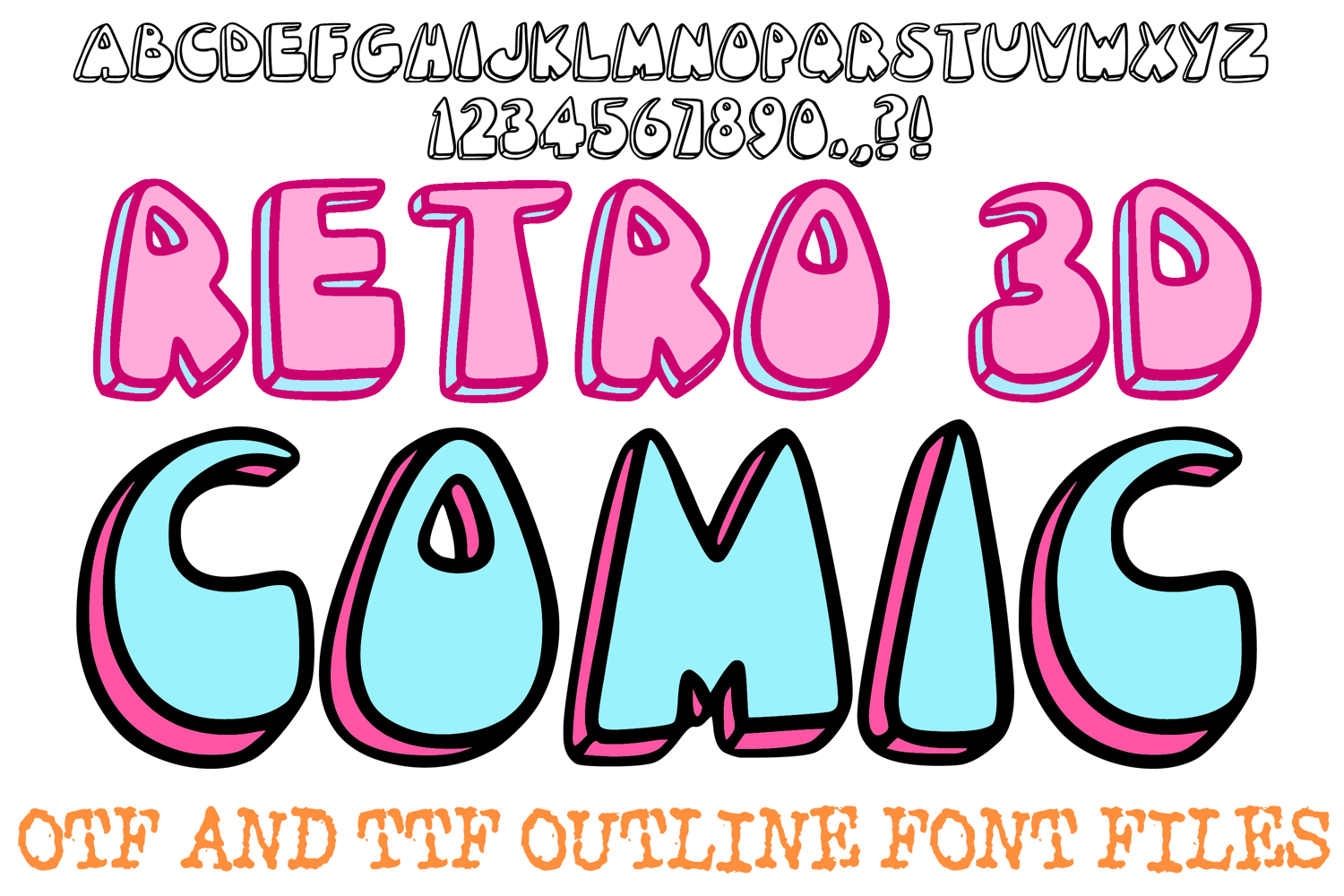
Retro 3D Comic Font Vintage Cartoon Written Lettering ABC
Pop your designs off the page with the Retro 3D Comic Font! This vibrant, high-energy display typeface features chunky, bubble-style characters with a classic offset shadow that creates a bold, three-dimensional effect. It is the ultimate choice for comic book titles, superhero-themed birthday invitations, nostalgic 90s apparel, and eye-catching social media graphics.
The playful, hand-drawn silhouettes and exaggerated 3D depth give each letter a sense of action and movement. Whether you are designing a logo for a gaming channel, crafting custom stickers, or creating dynamic posters, the Retro 3D Comic Font provides a professional, vintage-inspired look that demands attention.
Why Your Designs Will Stand Out
Dynamic 3D Effect: Every character includes a built-in offset shadow that adds instant depth and a "pop-out" comic book feel.
Bold Bubble Aesthetic: Thick, rounded letterforms provide a friendly yet powerful presence for headlines and titles.